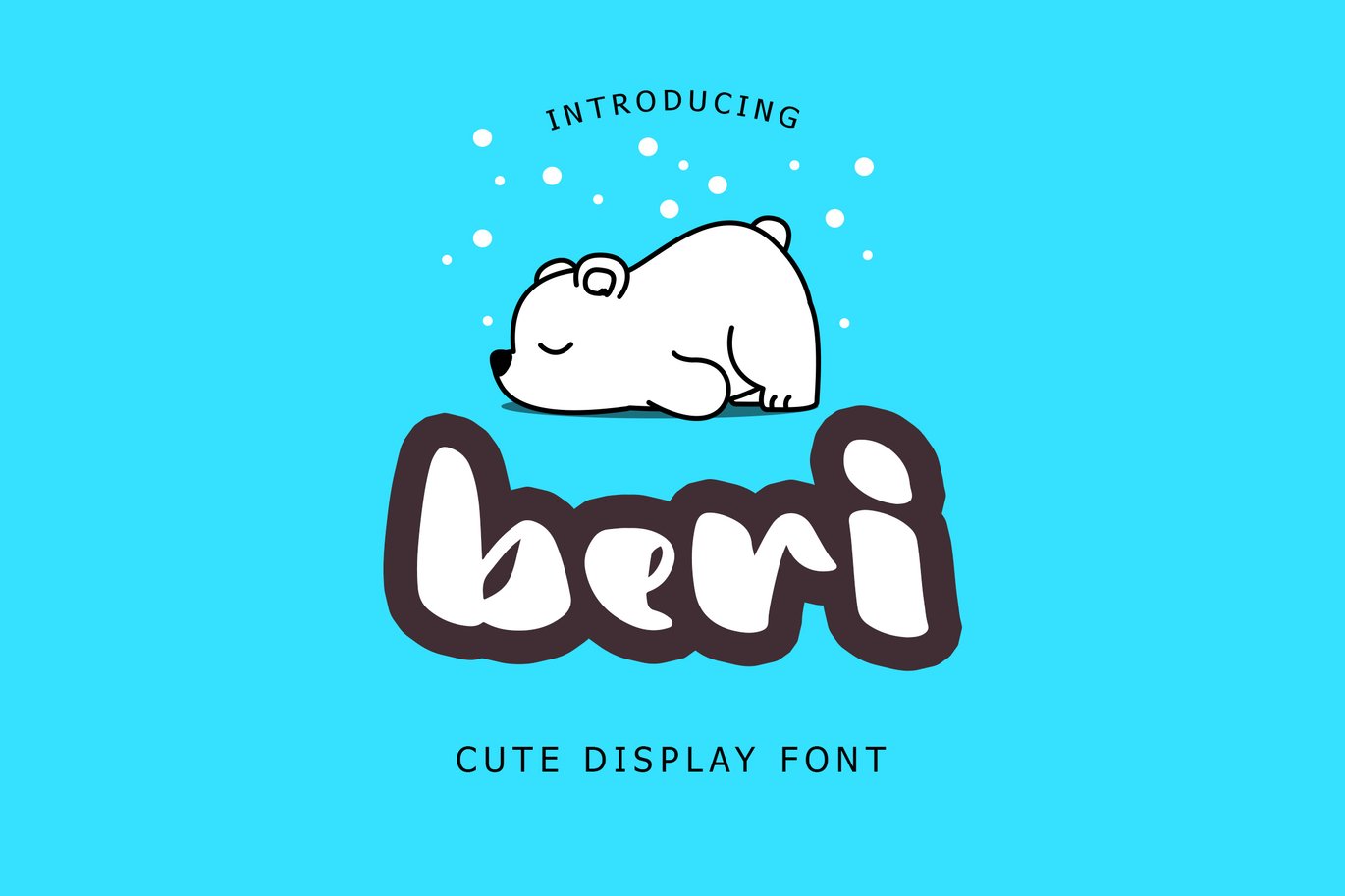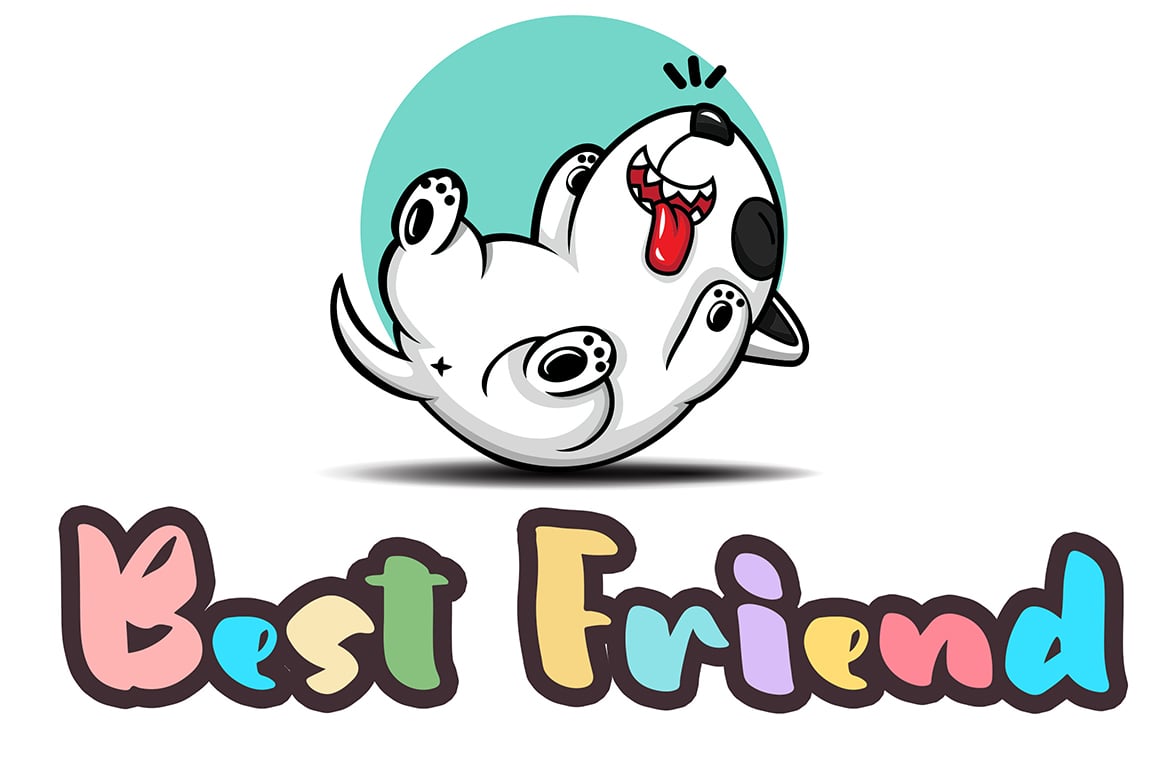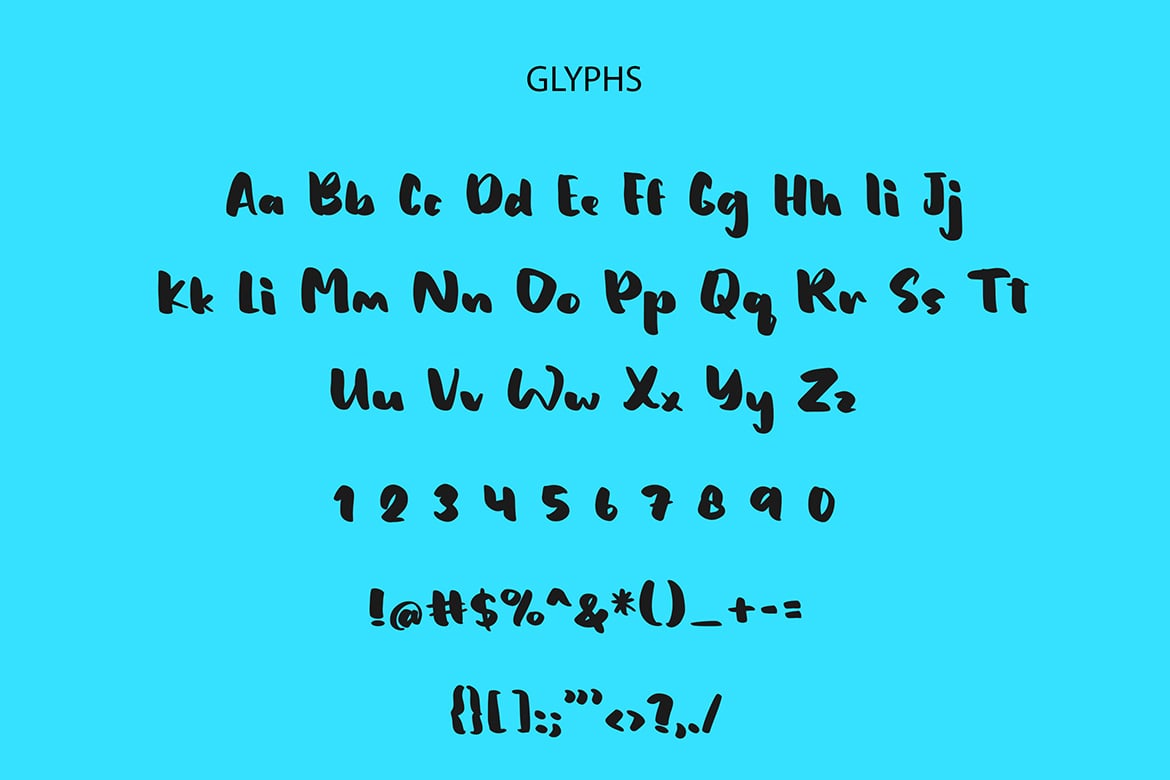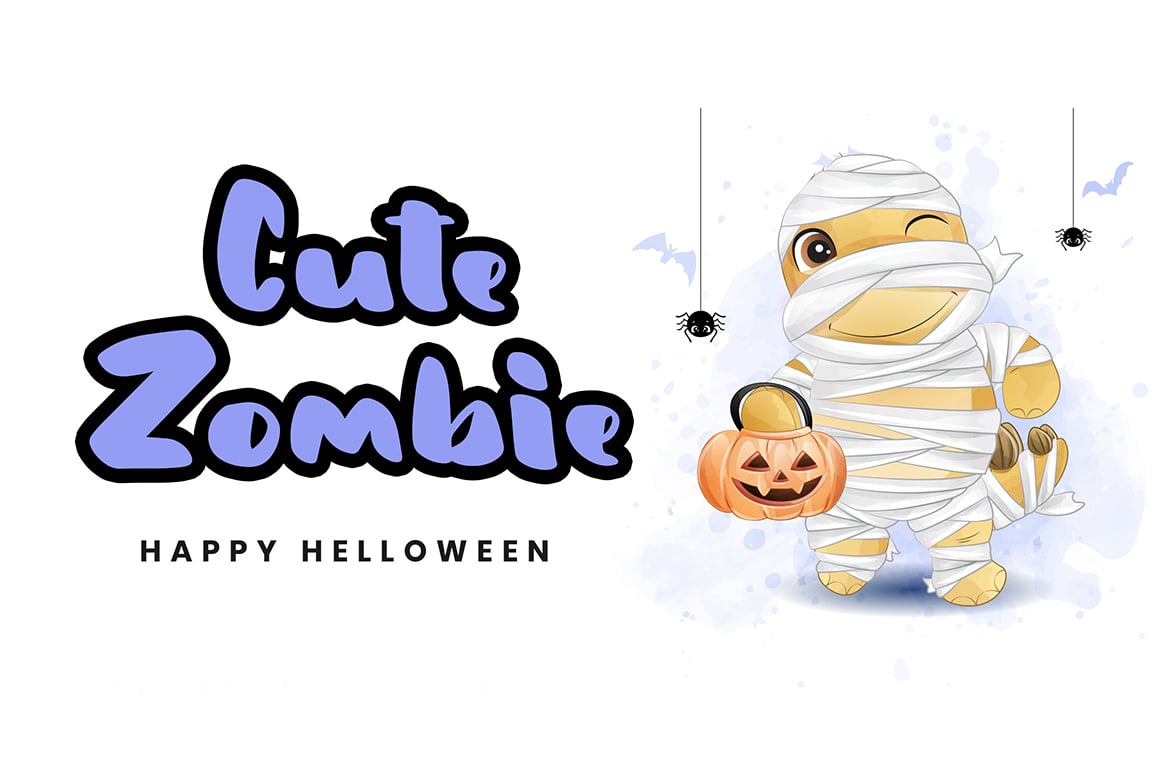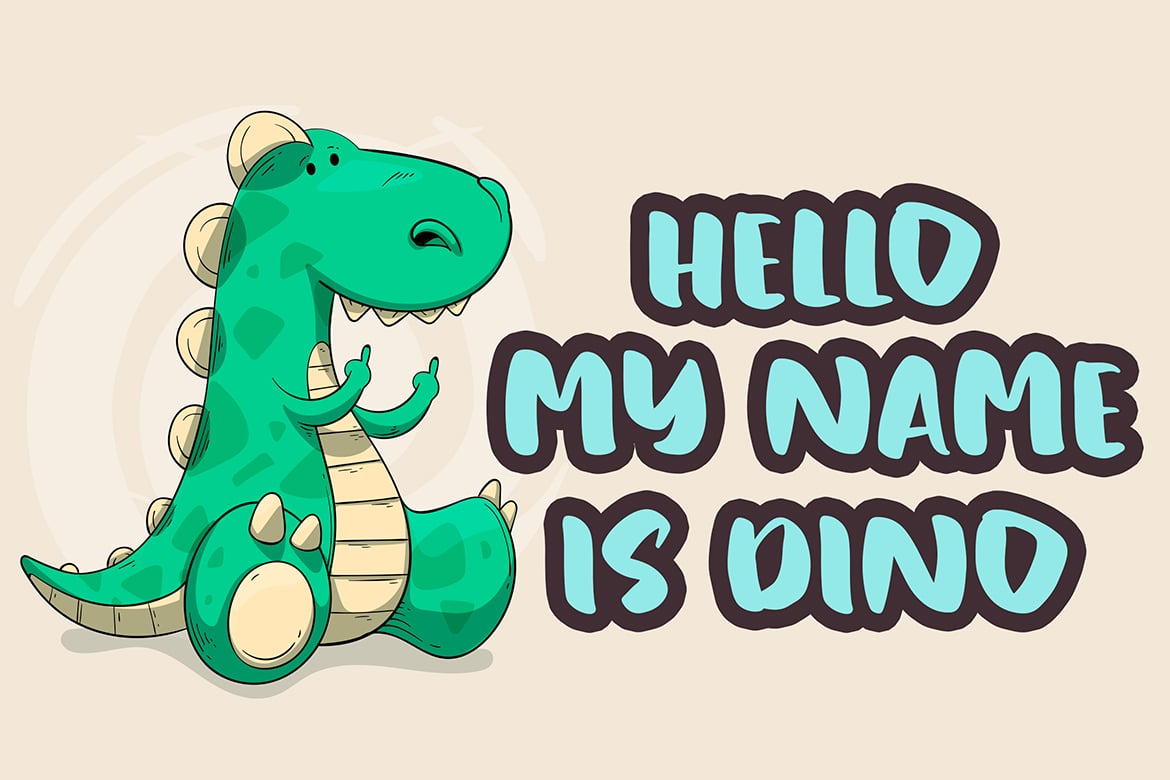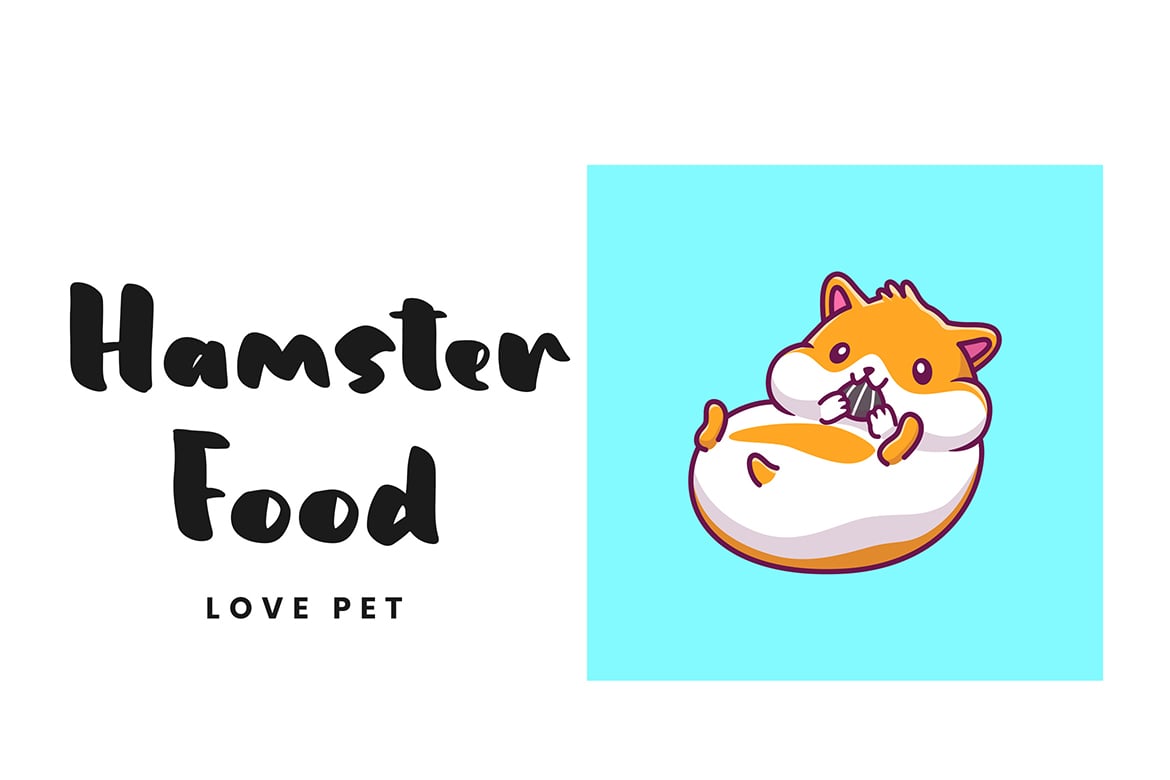
Beri Cute Display Font
Beri an exciting and extraordinary display font that will make any kid-themed design stand out!
Beri is perfect for branding projects, logo, tshirt designs, book cover design, social media posts, advertisements, product packaging, product designs, label, watermark, invitation, stationery and any projects.